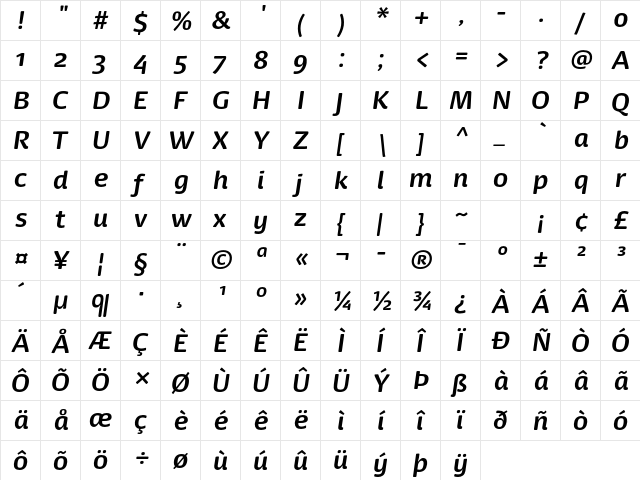
Dancer Pro Bold Italic Font Preview
Dancer Pro Bold Italic
Dancer Pro Bold Italic Font Details
| Foundry | Morten Rostgaard Olsen |
| Designer | Morten Rostgaard Olsen |
Design Context for Dancer Pro Typeface
Dancer Pro takes a measured approach to typography — its balanced proportions and neutral character make it a reliable workhorse for both digital and print work. Its italic angle brings a sense of urgency and motion to the letterforms. The heavy weight commands attention and anchors typographic hierarchies.
Pro Tip: Use Dancer Pro for emphasis, pull quotes, and subheadings where its slanted energy can add rhythm to the layout.